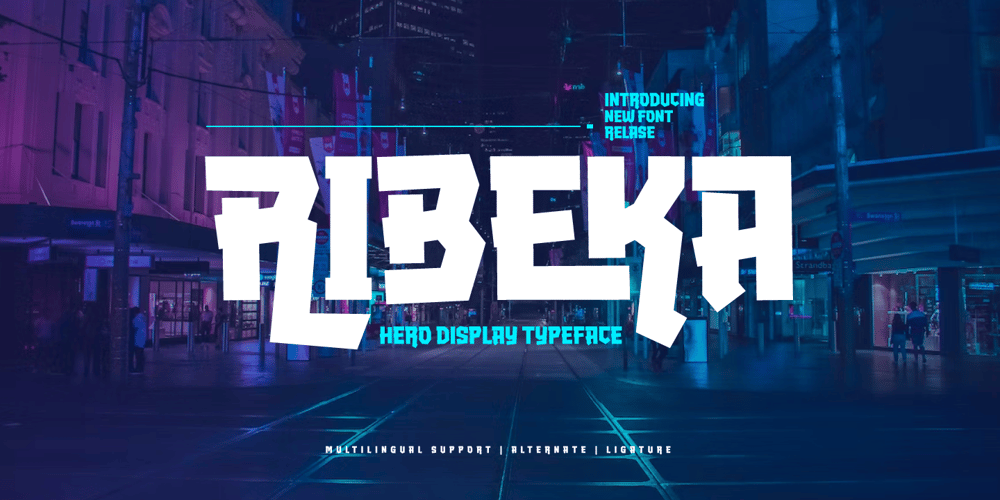
Ribeka Font Family was designed by Lita Faolina and published by Product Type. Ribeka contains 1 styles and family package options. Ribeka is a bold display font with a modern vibe and an unforgettable quality. Its sharp and strong typefaces make it perfect for the superhero, war, or whatever posters you need. what are you waiting for start using this font for a super look project! What’s Included : File font All glyphs Iso Latin 1 Ligature, Alternate We highly recommend using a program that supports OpenType features and Glyphs panels like many Adobe apps and Corel Draw, so you can see and access all Glyph variations. PUA Encoded Characters – Fully accessible without additional design software. Fonts include Multilingual support Thank you for your purchase!